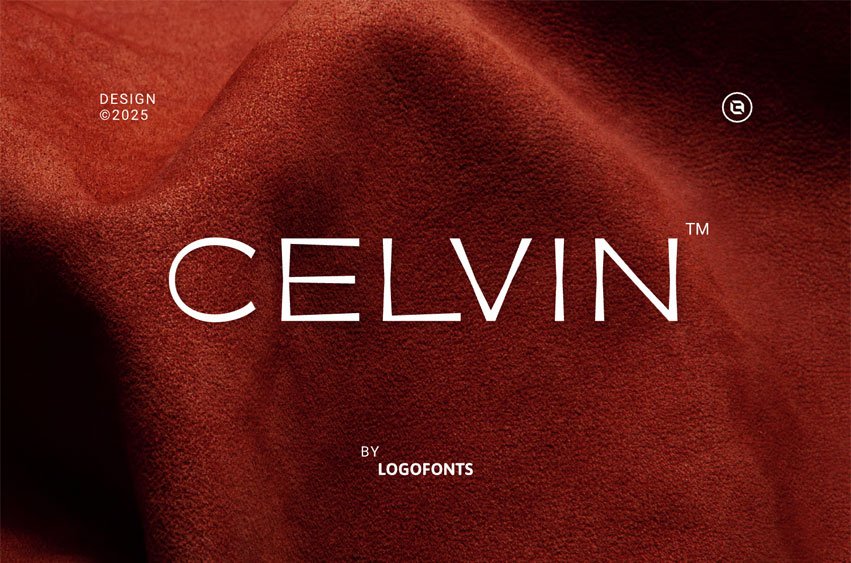
Celvin Font is a Minimal Clean Elegant font that combines simplicity with sophistication. Designed with smooth curves and modern proportions, this font delivers a timeless aesthetic perfect for creating corporate logos, travel posters, or cinematic titles. Its versatile nature ensures that every project maintains a professional yet stylish feel, making it a go-to choice for brands aiming to stand out with confidence.
Whether used for luxurious product packaging, royal branding, music covers, or modern café signage, Celvin adapts beautifully to both print and digital media. Its clean elegance allows designers to highlight their creativity while keeping the design refined and approachable. From minimal layouts to bold visual identities, Celvin gives your work a polished and contemporary touch.
Designed for elegance, crafted for timeless branding.